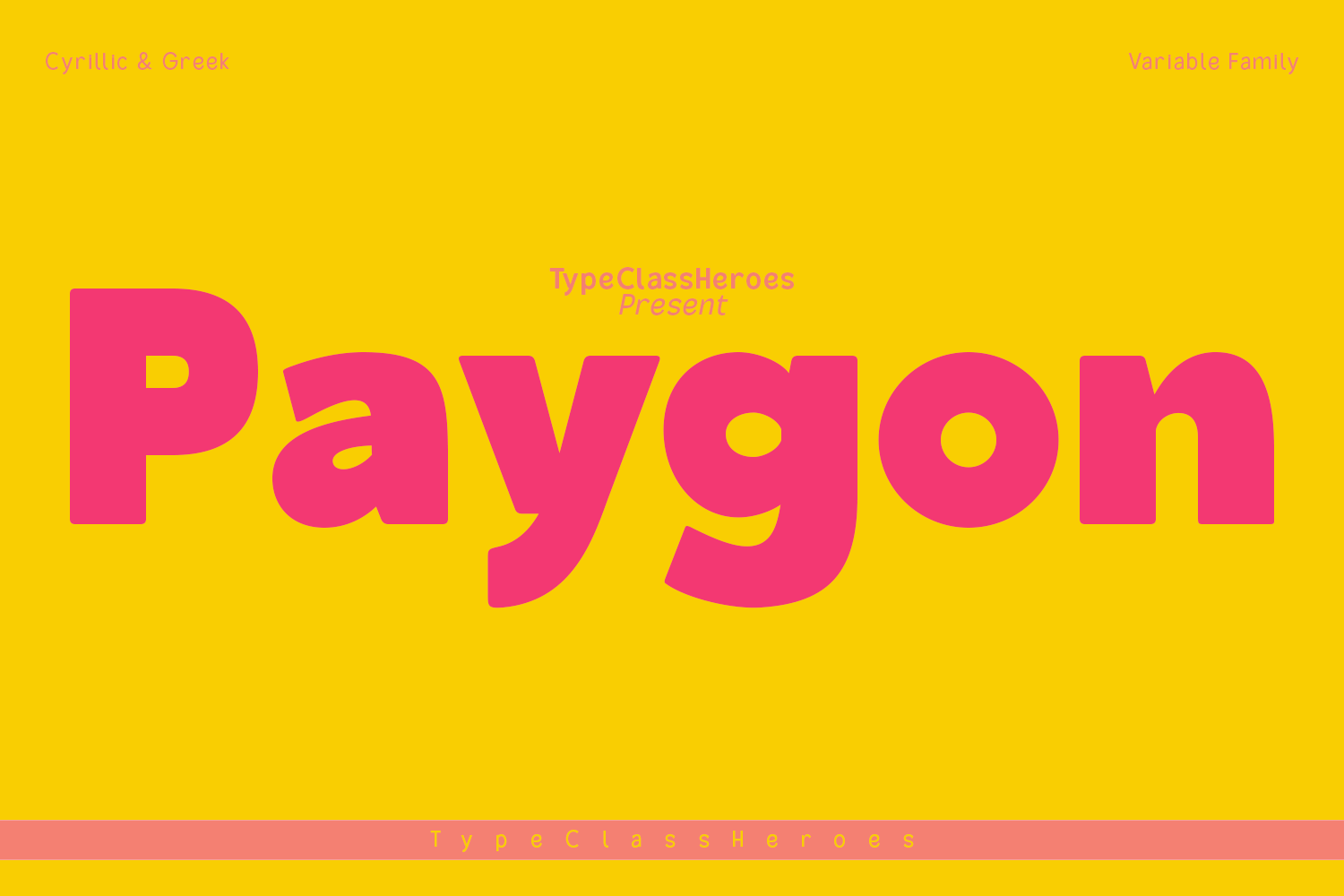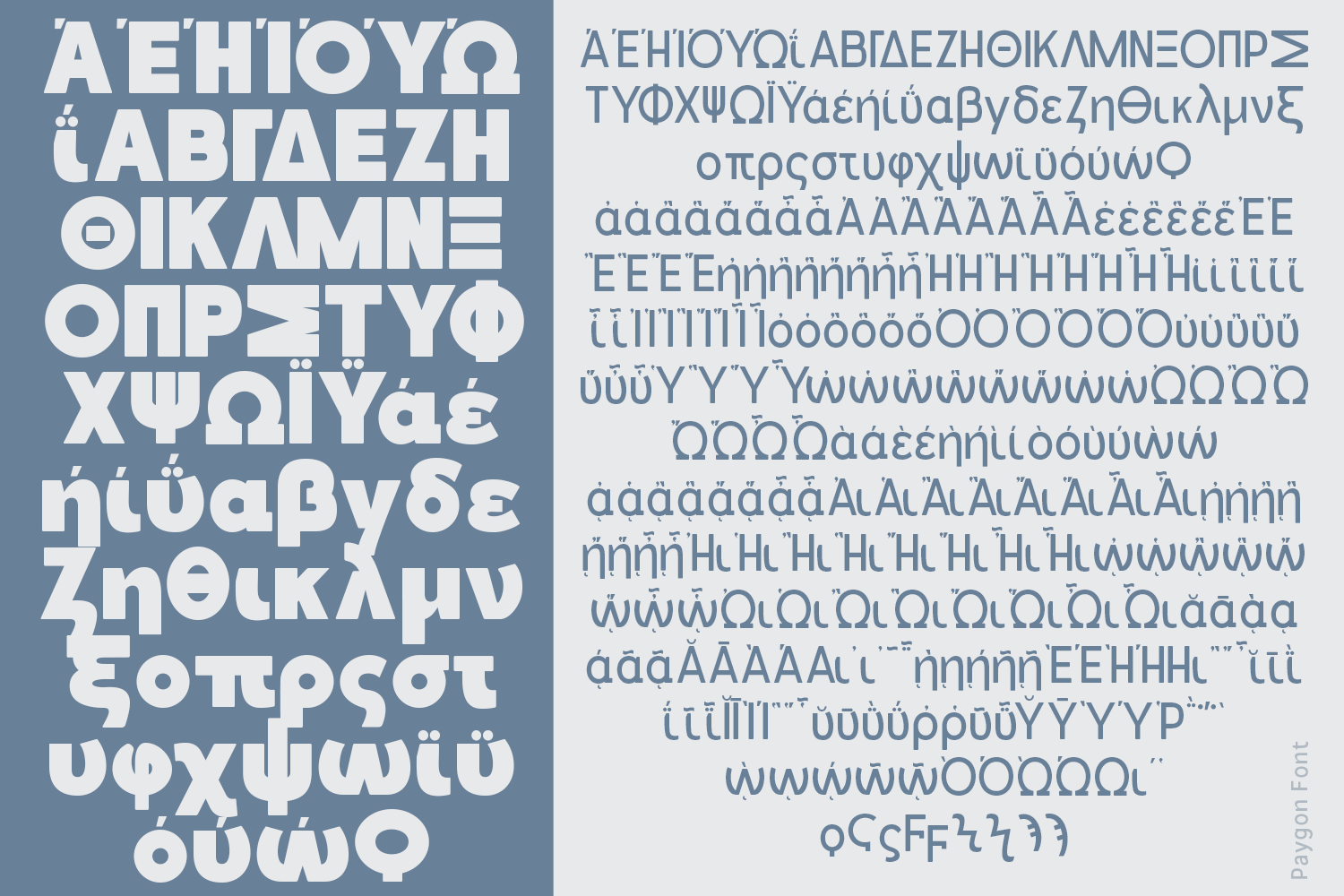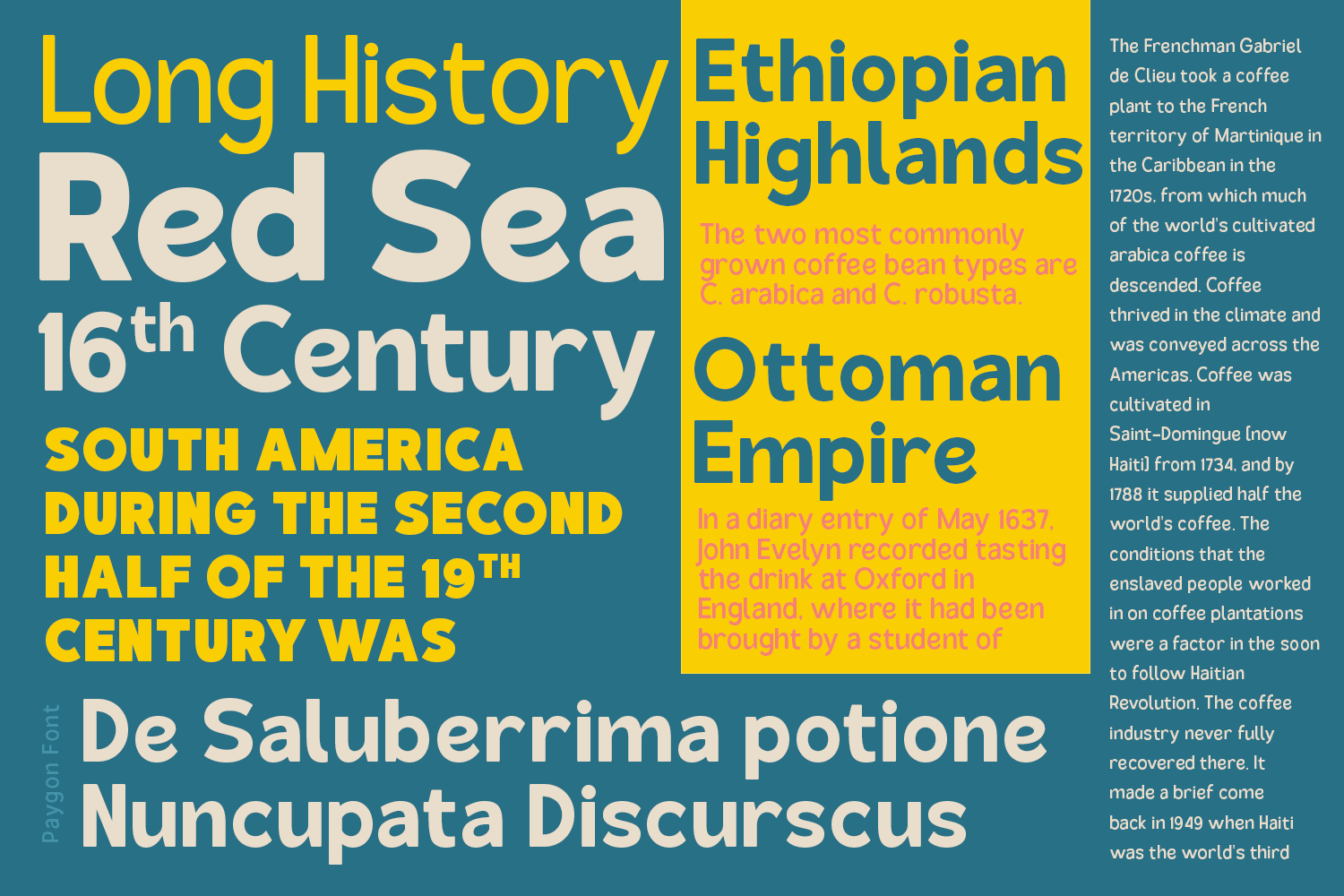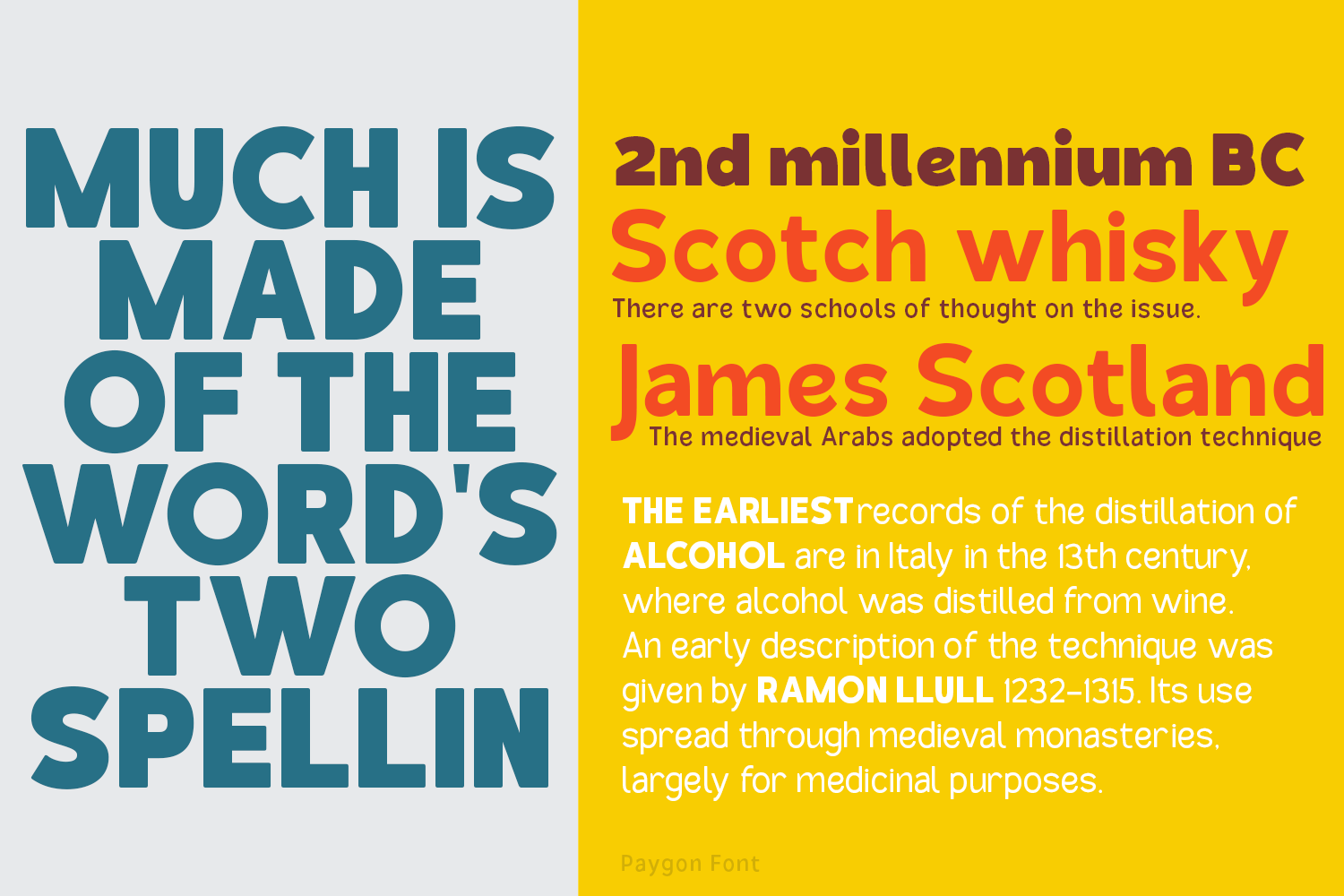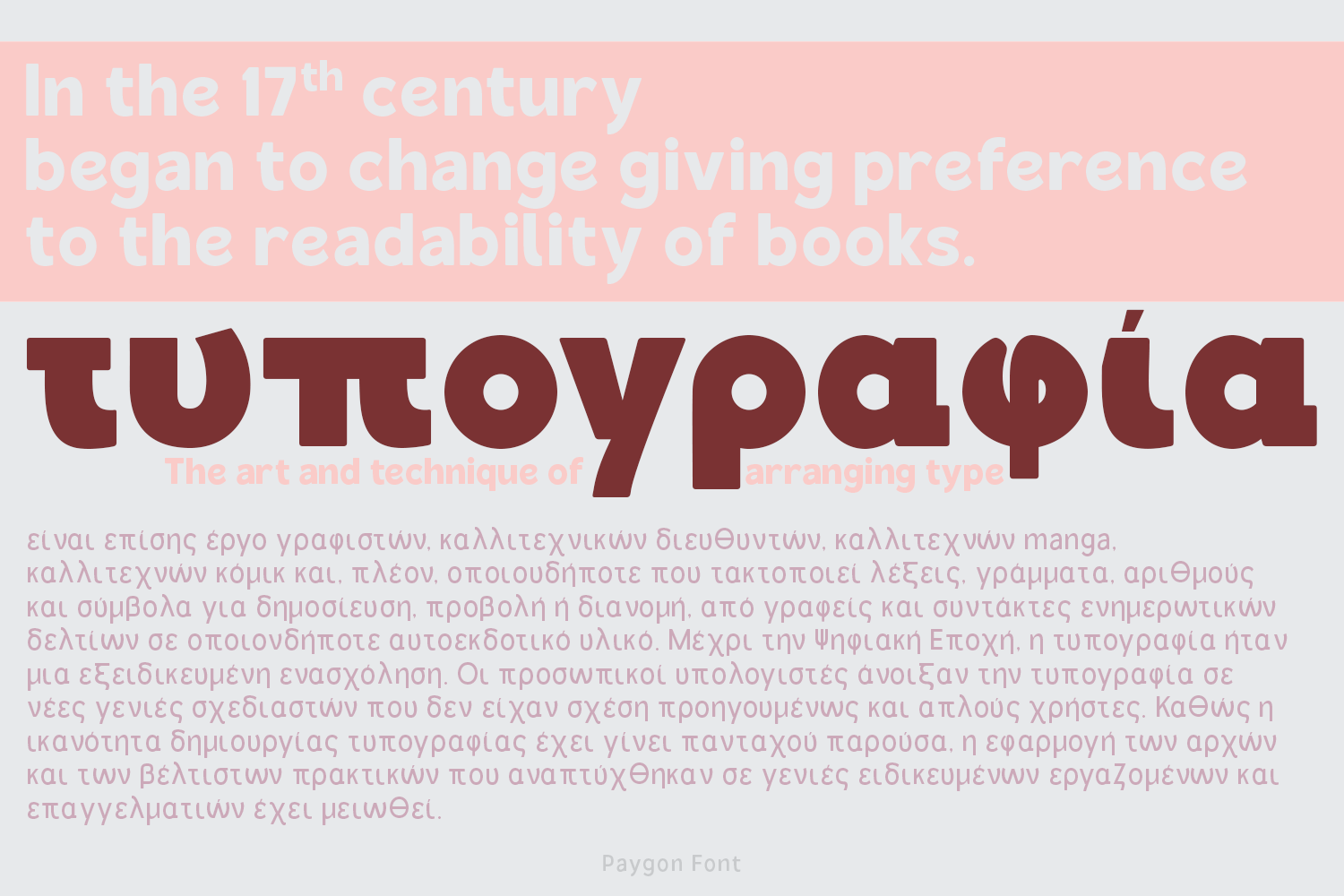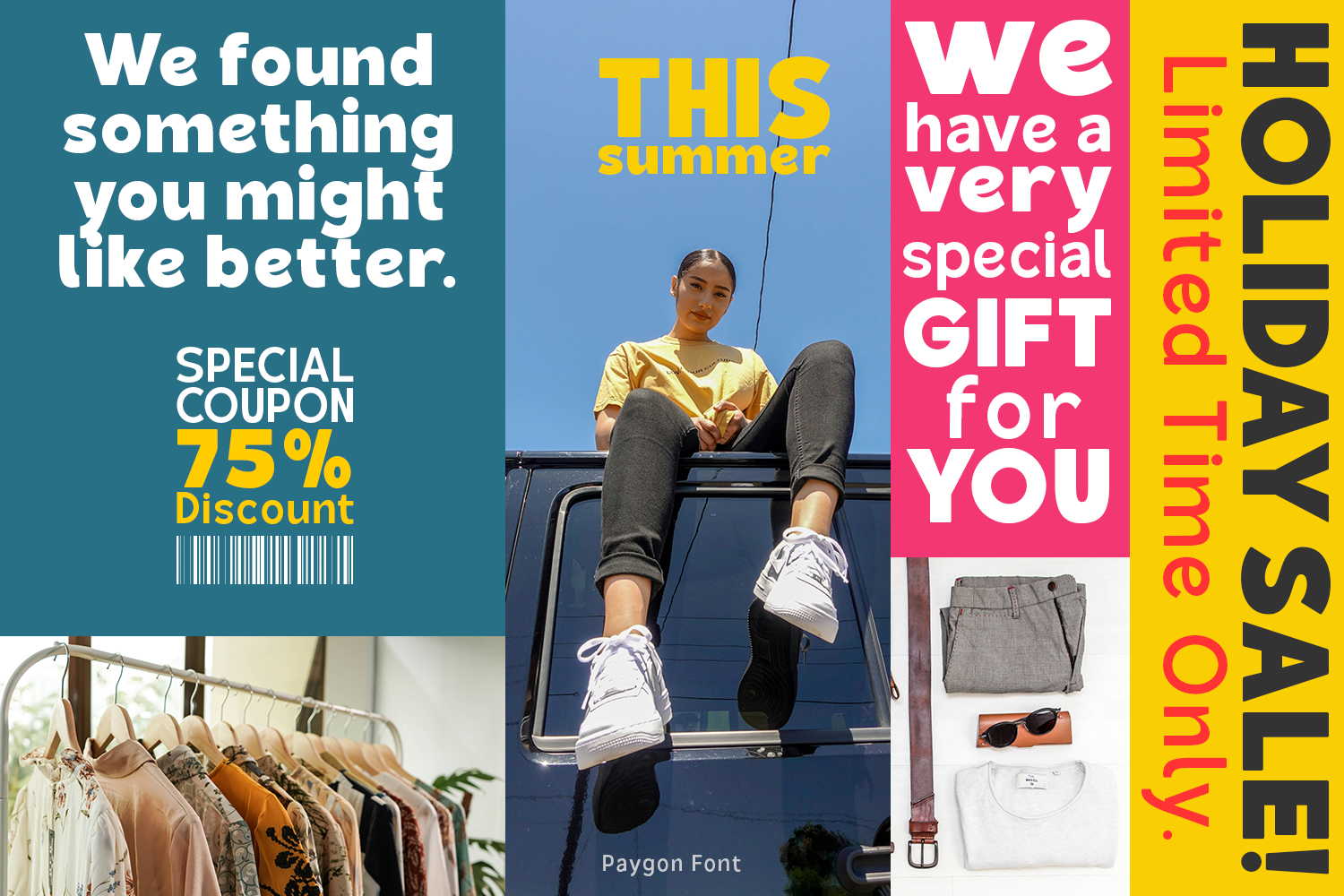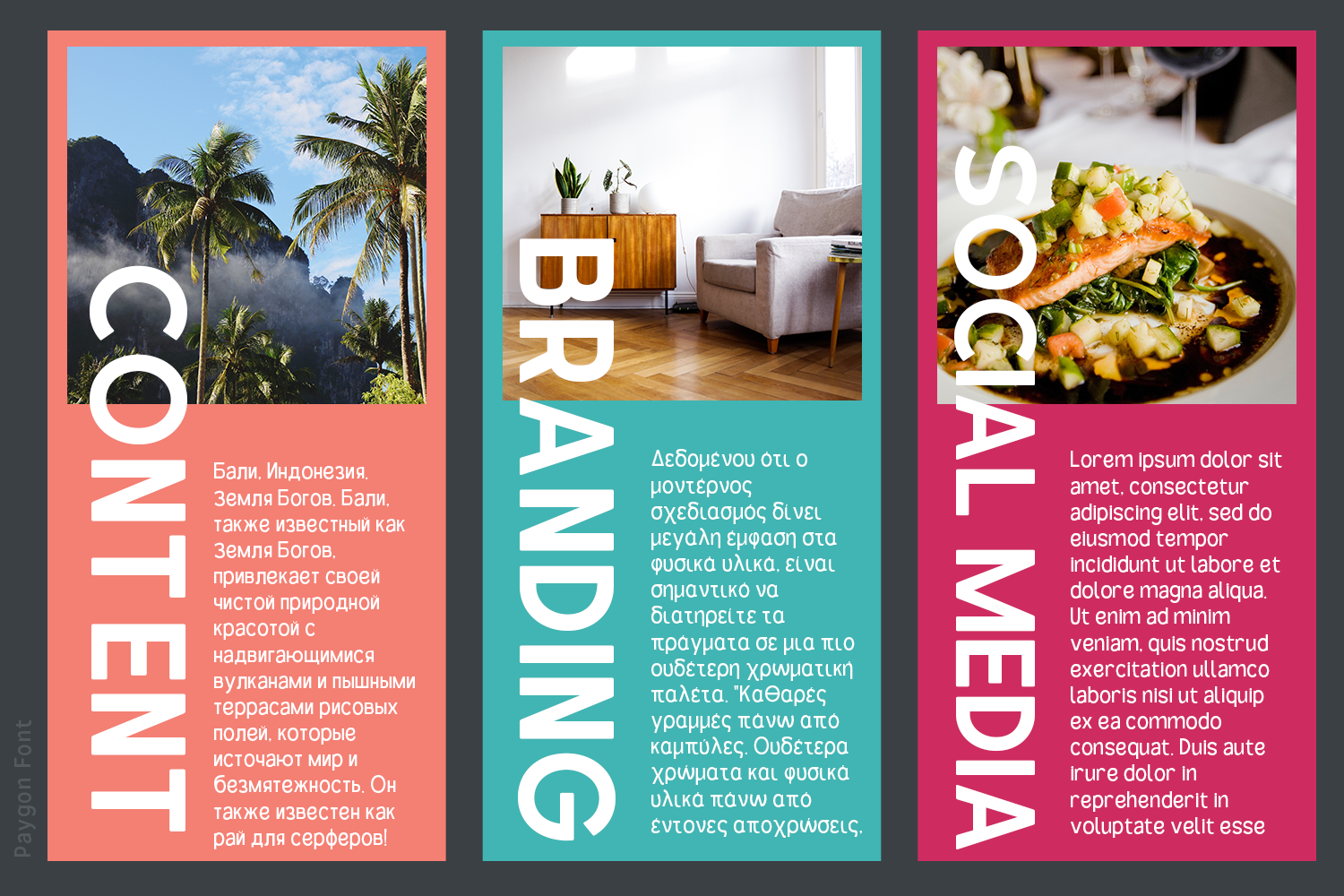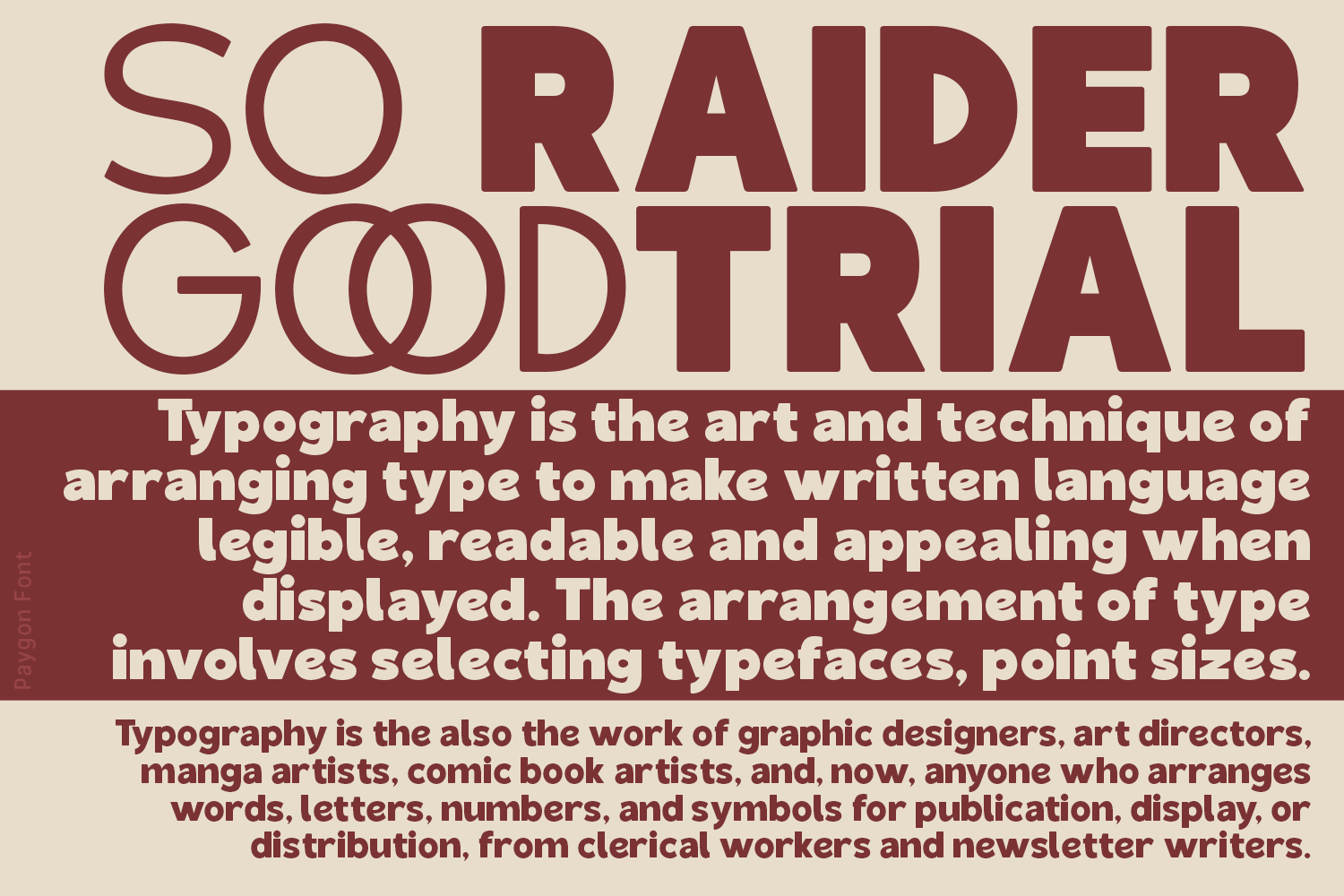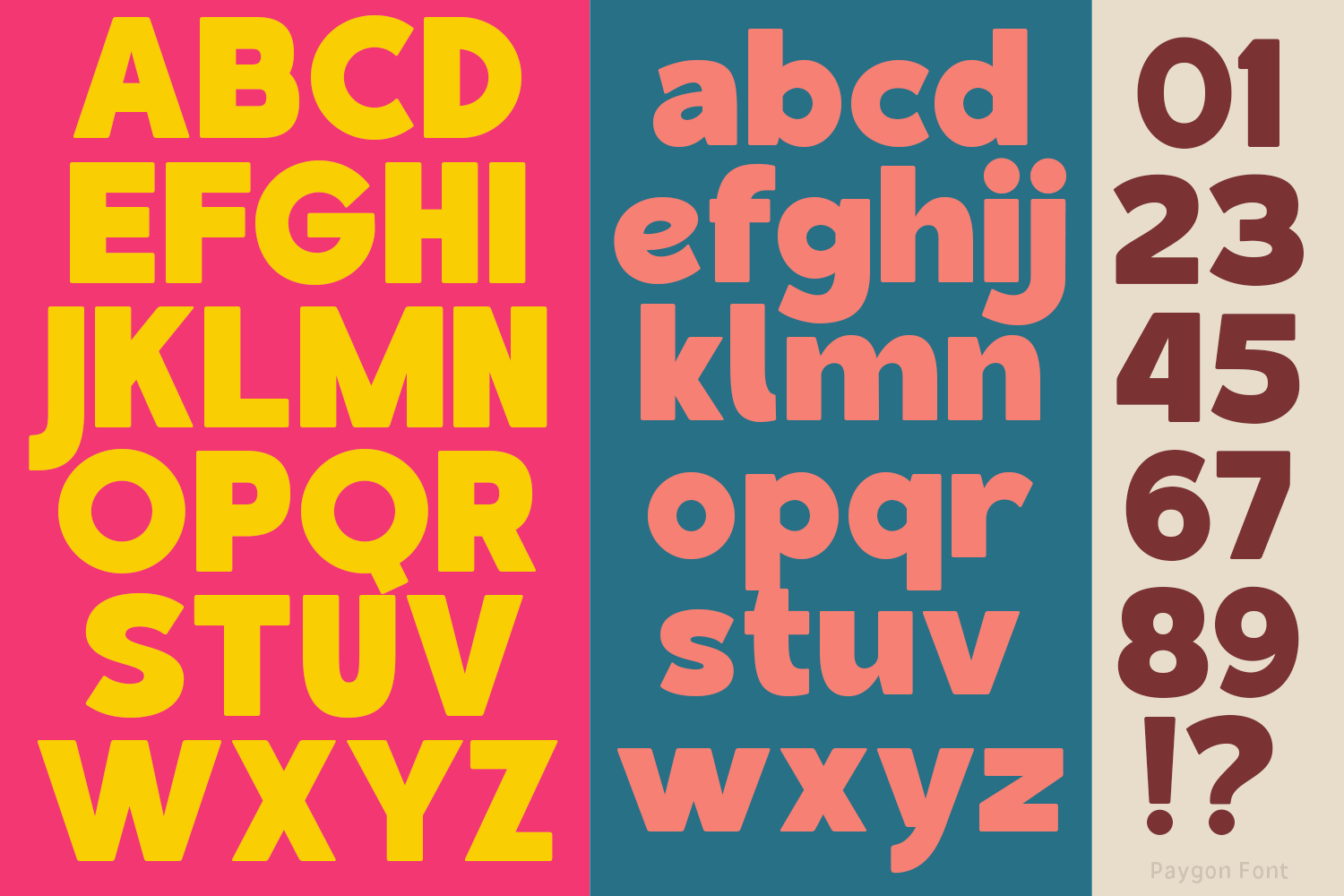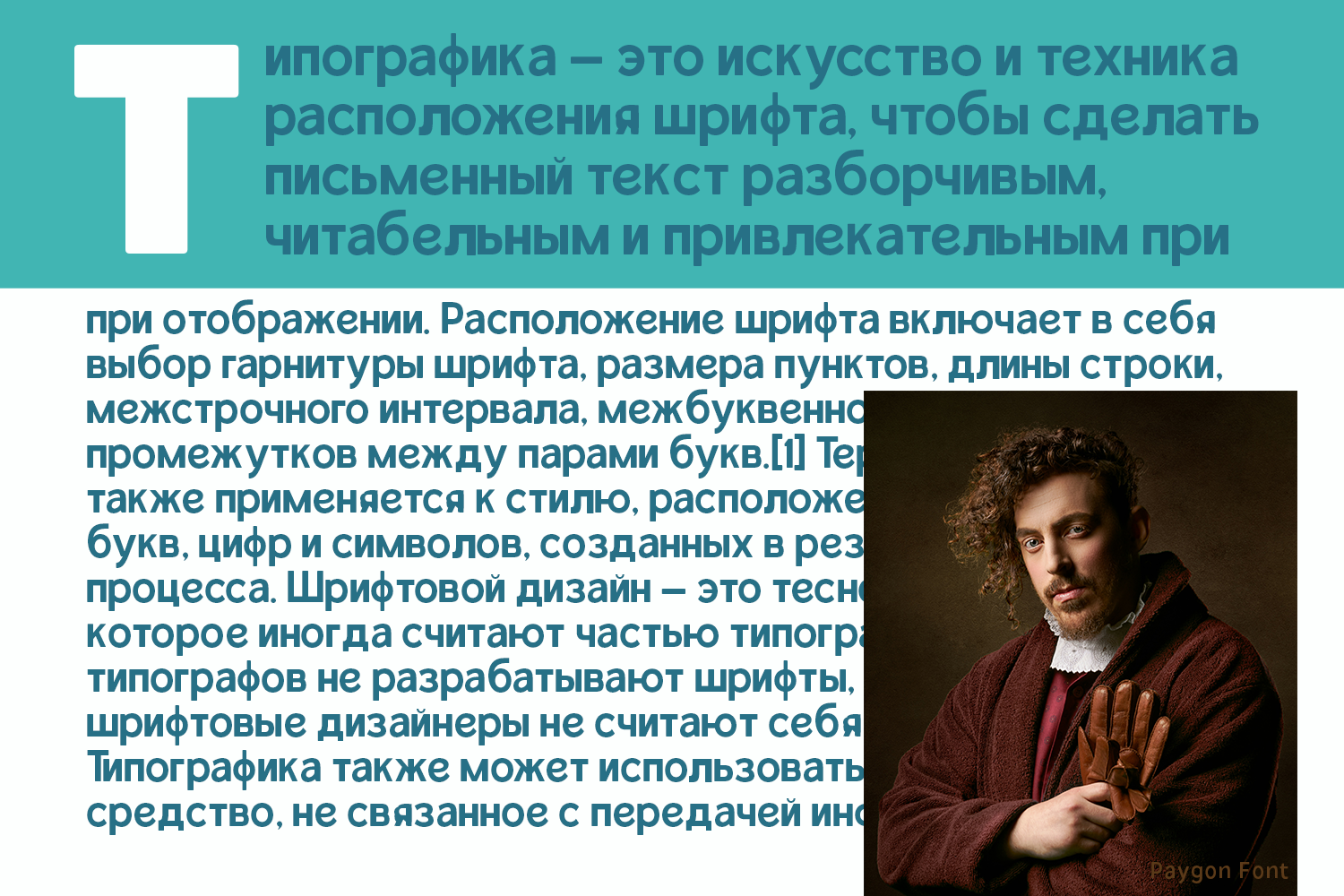
Paygon is a sans serif family. Design with various width and weight that you can explore and combine creating rhythm and texture for comfortable reading. This font supports more than 100 Latin-based languages and has extensive Cyrillic and Greek support for languages like Russian, Bulgarian, Ukrainian, and many more. In variable version, it allows multiple options when designing, adapting to different composition solutions.
• Uppercase & Lowercase
• Number & Symbol
• International Glyphs (Cyrillic & Greek)
• Multilingual support
• Ligature